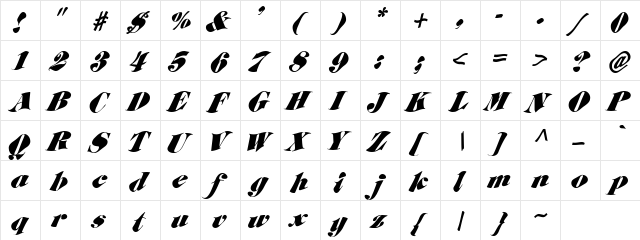
Fictive04 Regular
Design Context for Fictive04 Typeface
Fictive04 is a composed and adaptable typeface that performs quietly and consistently across a wide range of design contexts.